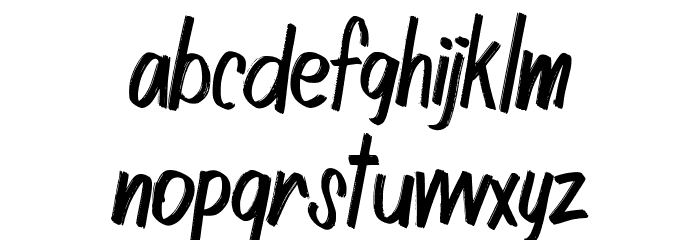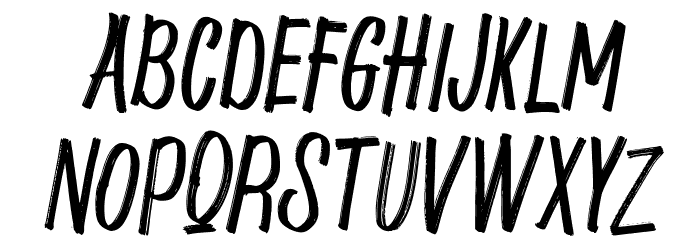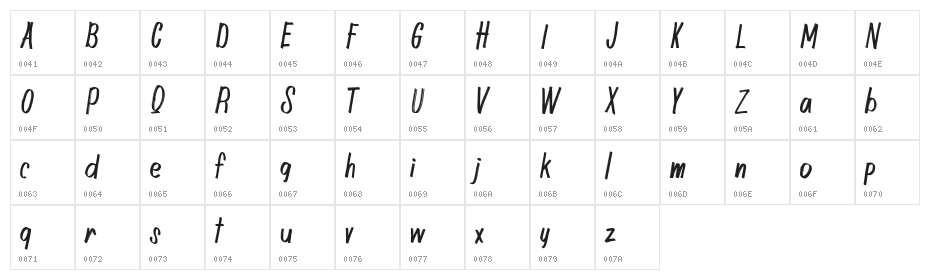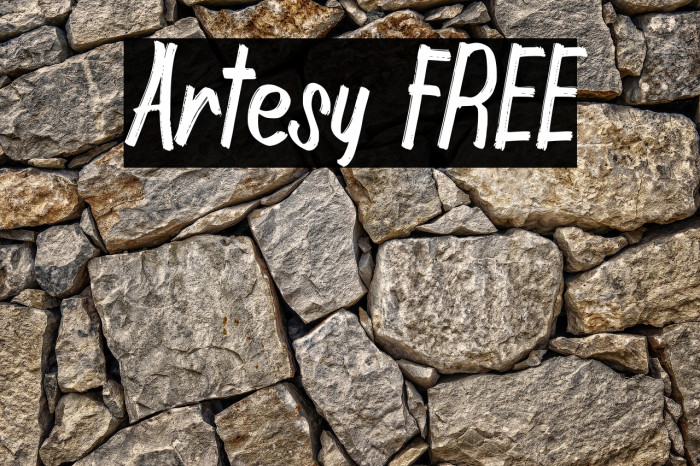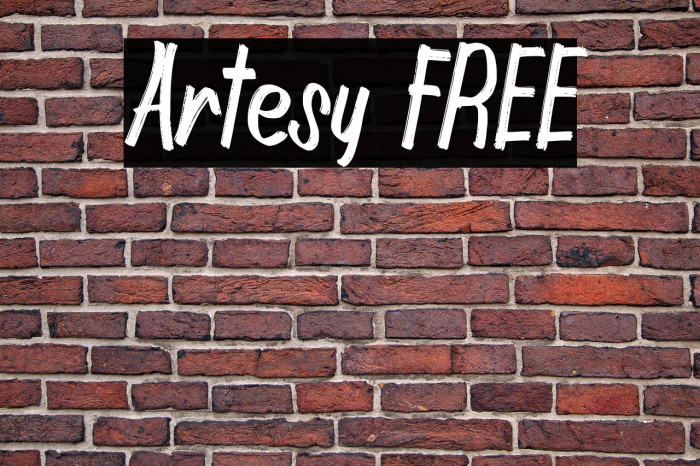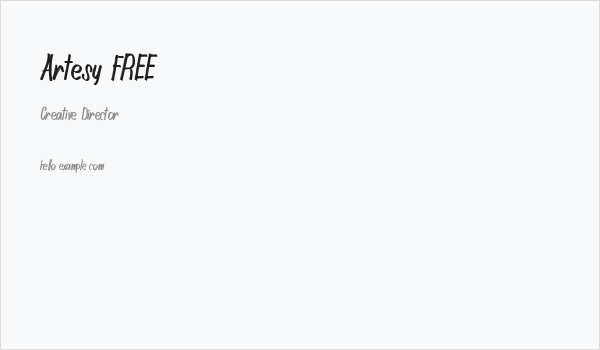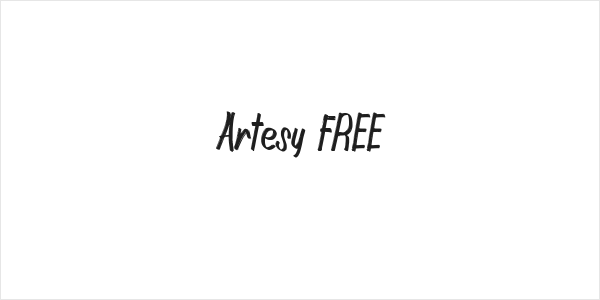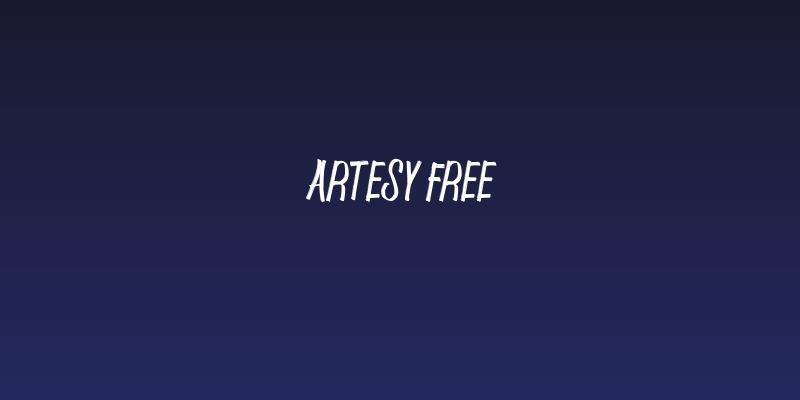
Artesy FREE Font
This font features a dynamic and energetic handwritten style with a playful and artistic flair. The letters are bold and slightly slanted, giving a sense of movement and spontaneity. The strokes vary in thickness, adding a textured, brush-like appearance that enhances its casual and informal vibe. The uppercase and lowercase letters maintain a consistent style, while the numbers and special characters complement the overall design. This font is perfect for projects that require a personal touch or a creative, lively aesthetic.
A bold, handwritten font with a playful and artistic style.
- Proposed Projects: Ideal for greeting cards, posters, social media graphics, and creative branding projects.